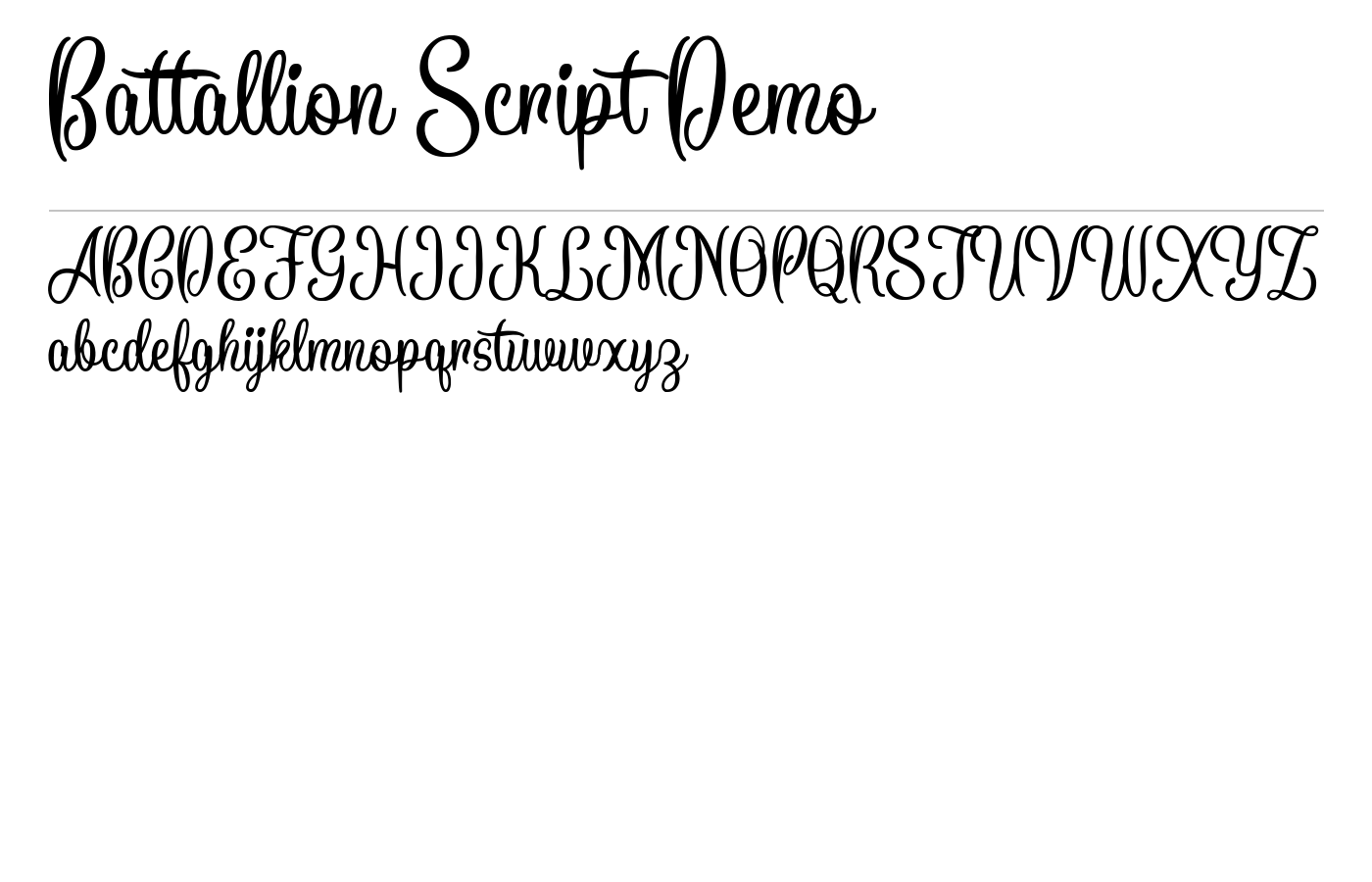
Battallion Script Italic Demo is an elegant, flowing script font with a modern calligraphic style, featuring smooth, connected letterforms and a graceful slant. It combines thin, delicate strokes with subtle contrast and unique character shapes, making it perfect for stylish branding, invitations, and sophisticated headlines. Its light weight and airy structure give a refined, approachable feel that works beautifully in both digital and print designs.
Battallion Script Italic Demo Font